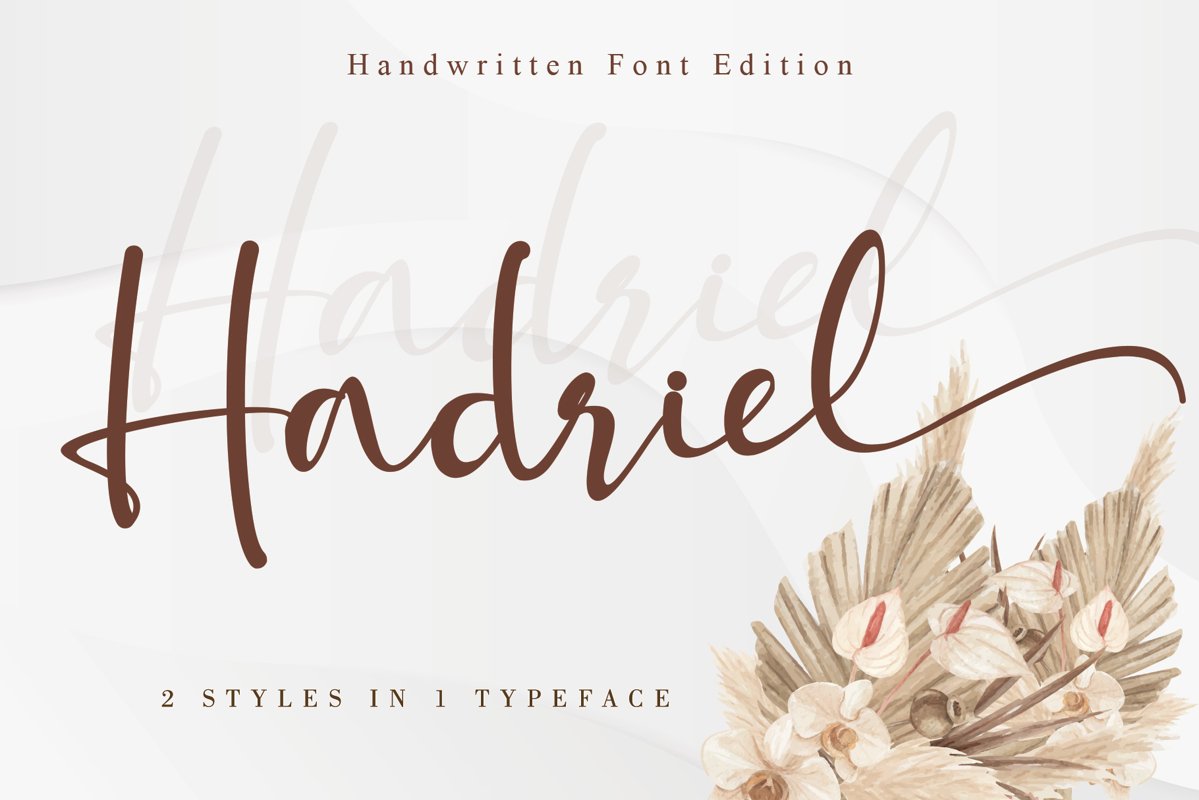
Hadriel is a beautiful light handwritten font with a unique
feel and looks stunning. This fantastic handwritten font is best suited for
headlines of all sizes, as well as for blocks of text. Whether it’s for web,
print, moving images, or anything else.
It will add a luxury spark to any design project!  This font is PUA encoded which means you can
access all of the amazing glyphs and swashes with ease! It also features a
wealth of special features including alternate glyphs and ligatures.